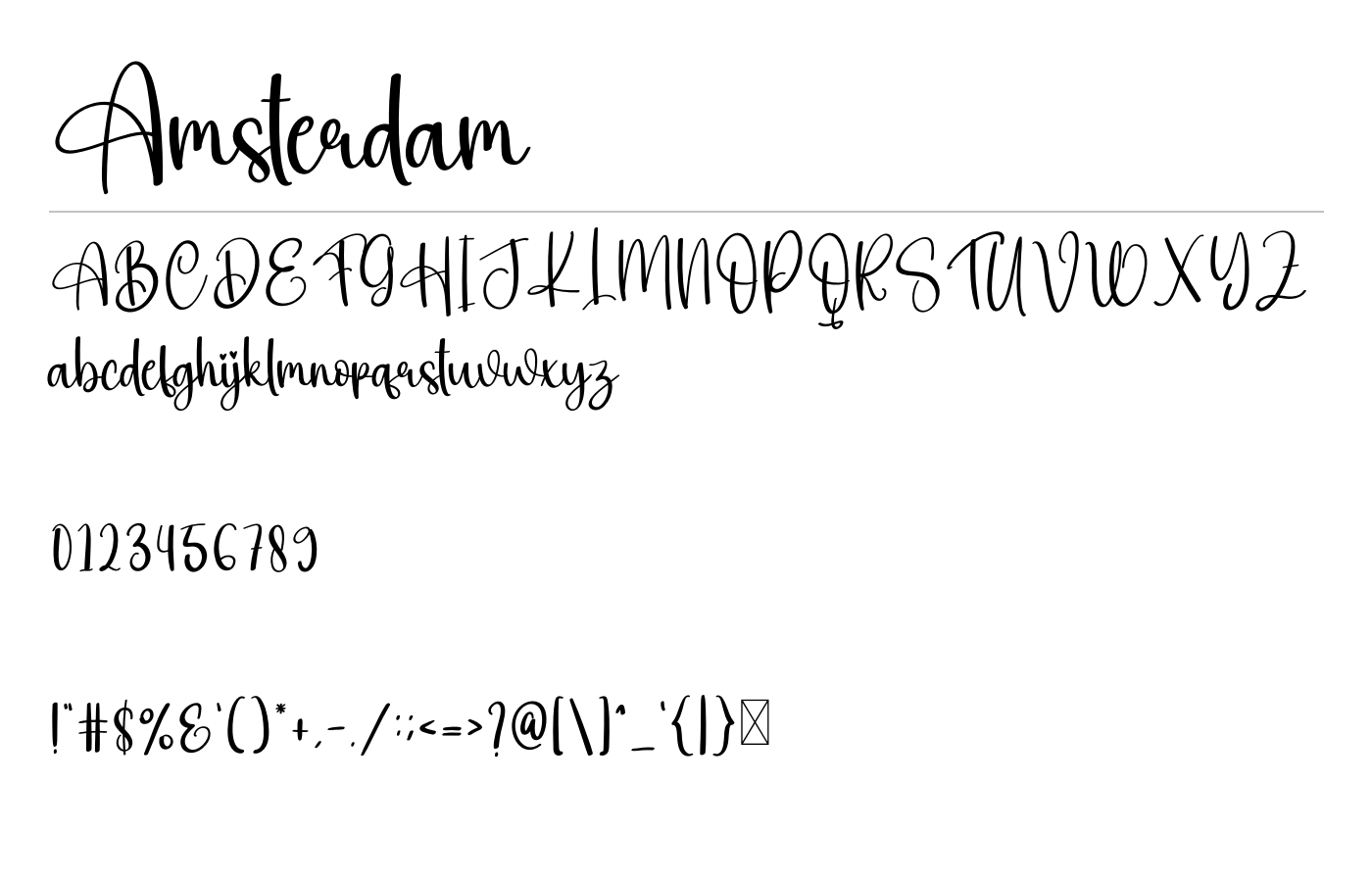
Amsterdam Font is a charming handwritten script with a casual yet elegant feel, featuring tall, slender letterforms and playful loops that add personality and warmth. Its lively strokes and unique character shapes make it perfect for creative branding, invitations, and eye-catching headlines where a friendly, artistic touch is desired. This font works well in contexts that seek to convey approachability and sophistication without feeling too formal.
Amsterdam Font
About Amsterdam Font